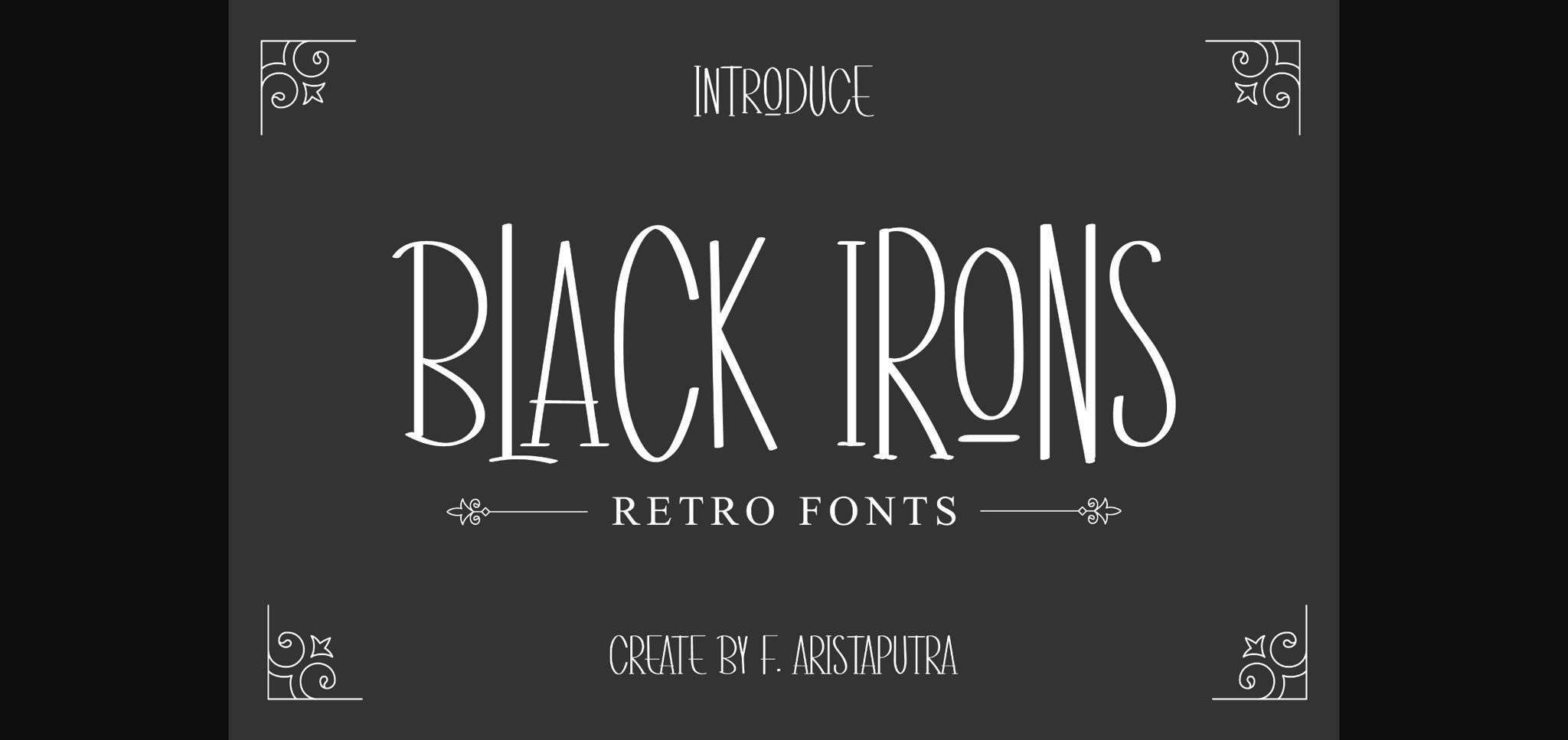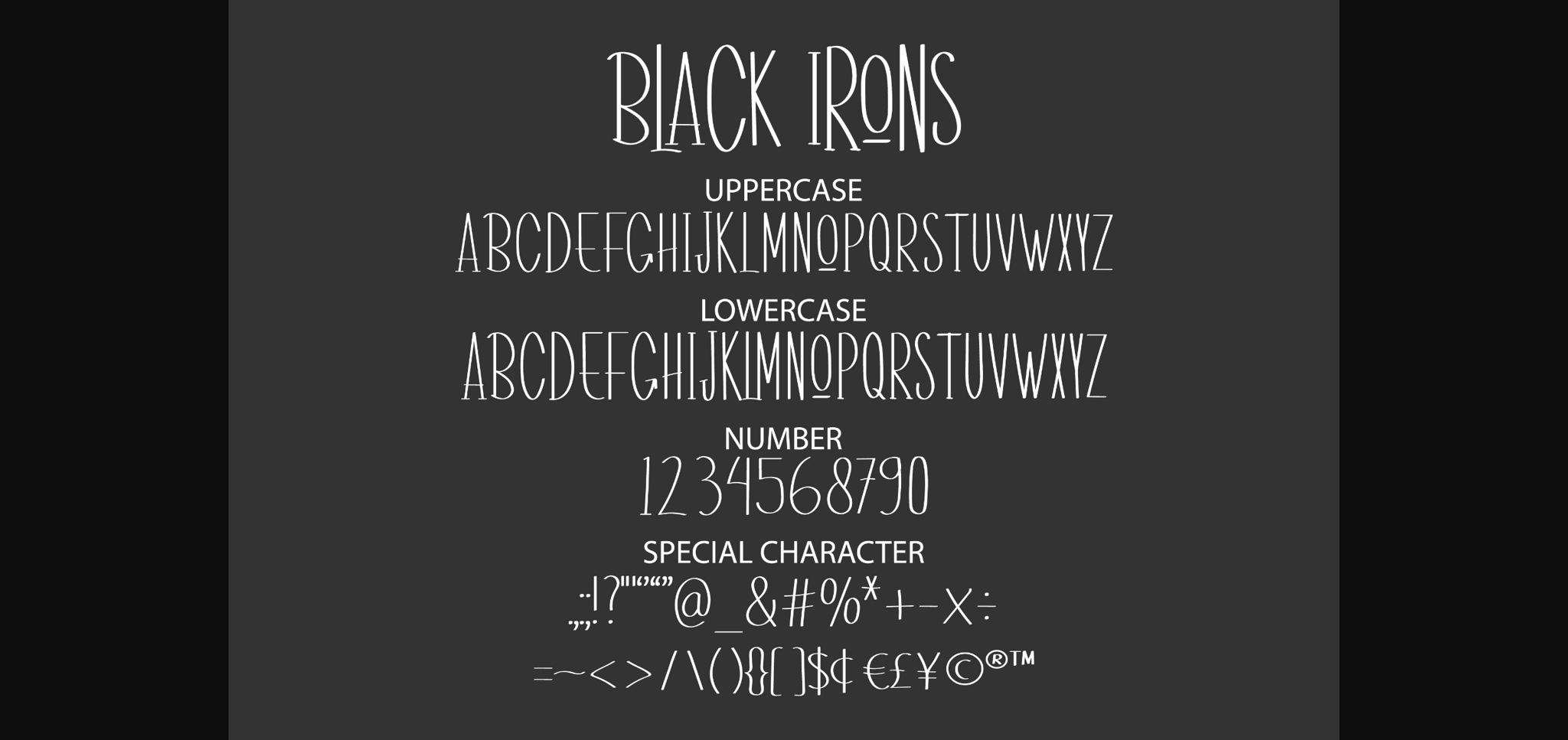
About Black Irons Font
Black Irons is a tall and thin sans serif font. It can easily be matched to an incredibly large set of projects, so add it to your creative ideas and notice how it makes them stand out!